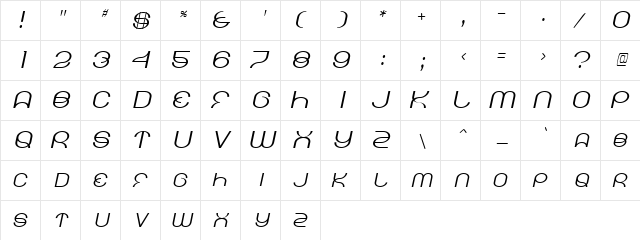
Kicking Limos Regular
Design Context for Kicking Limos Typeface
Kicking Limos offers clean, dependable letterforms without strong stylistic allegiance, making it a practical choice for designers who need flexibility.